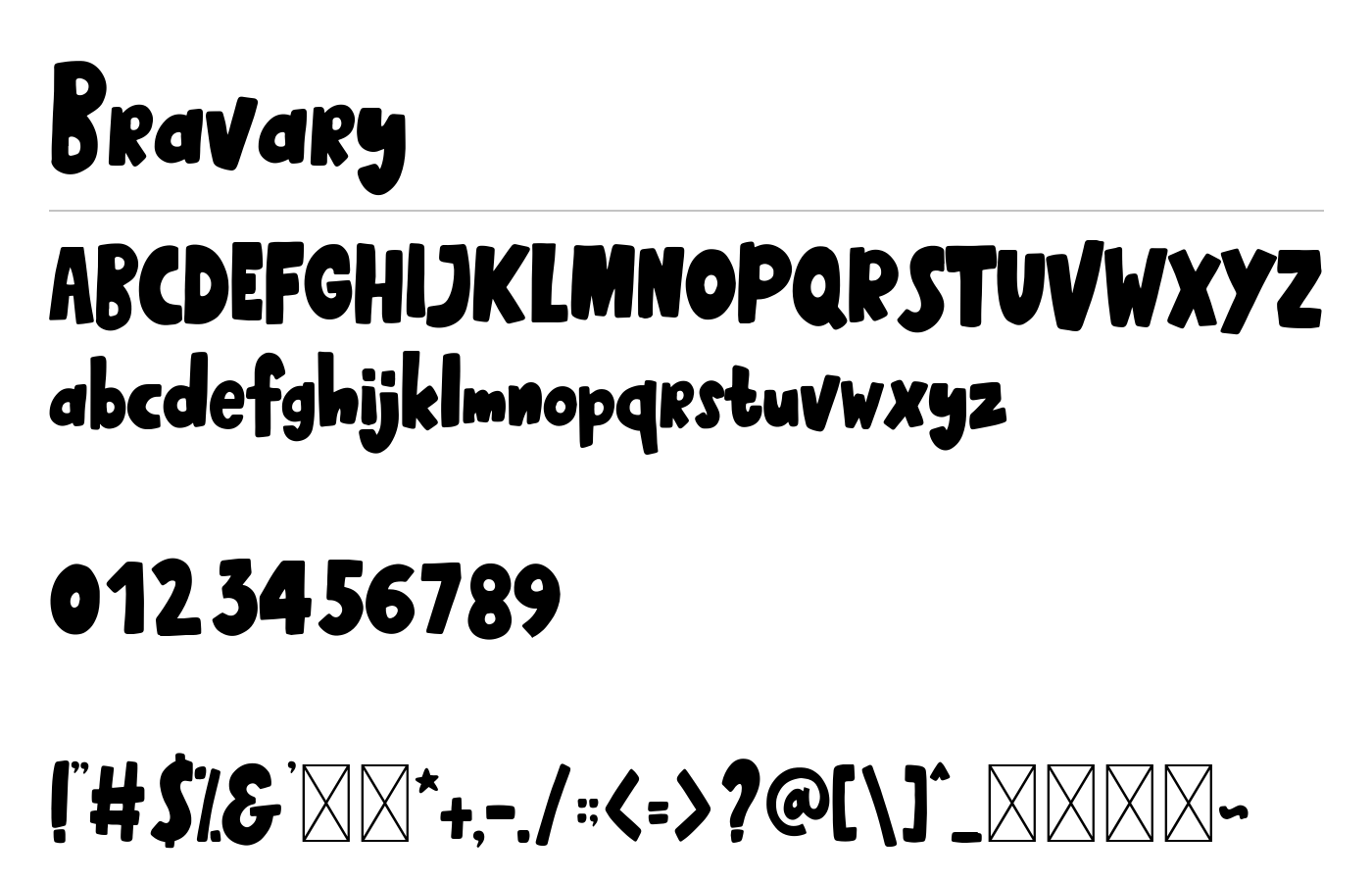
Bravary is a bold, playful sans serif font with a chunky, hand-drawn feel that adds a friendly and approachable vibe. Its irregular shapes and uneven strokes give it a whimsical, informal style ideal for fun, creative projects like children’s books, posters, and branding that needs a casual, energetic touch. This font works best at display sizes where its quirky personality can shine and grab attention.
Bravary Font
About Bravary Font